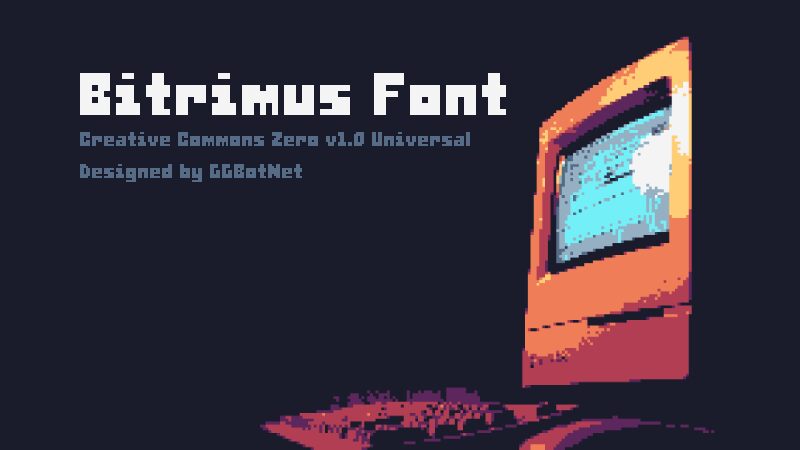
Bitrimus
Bitrimus font by GGBotNet is a bold, expanded, and slightly pixelated bitmap typeface with a modern appeal. The geometric shapes are simultaneously modular and rectangular which leads to regular letter spacing and clean look. Overall, this font has an industrial style that is pleasing to the eye.